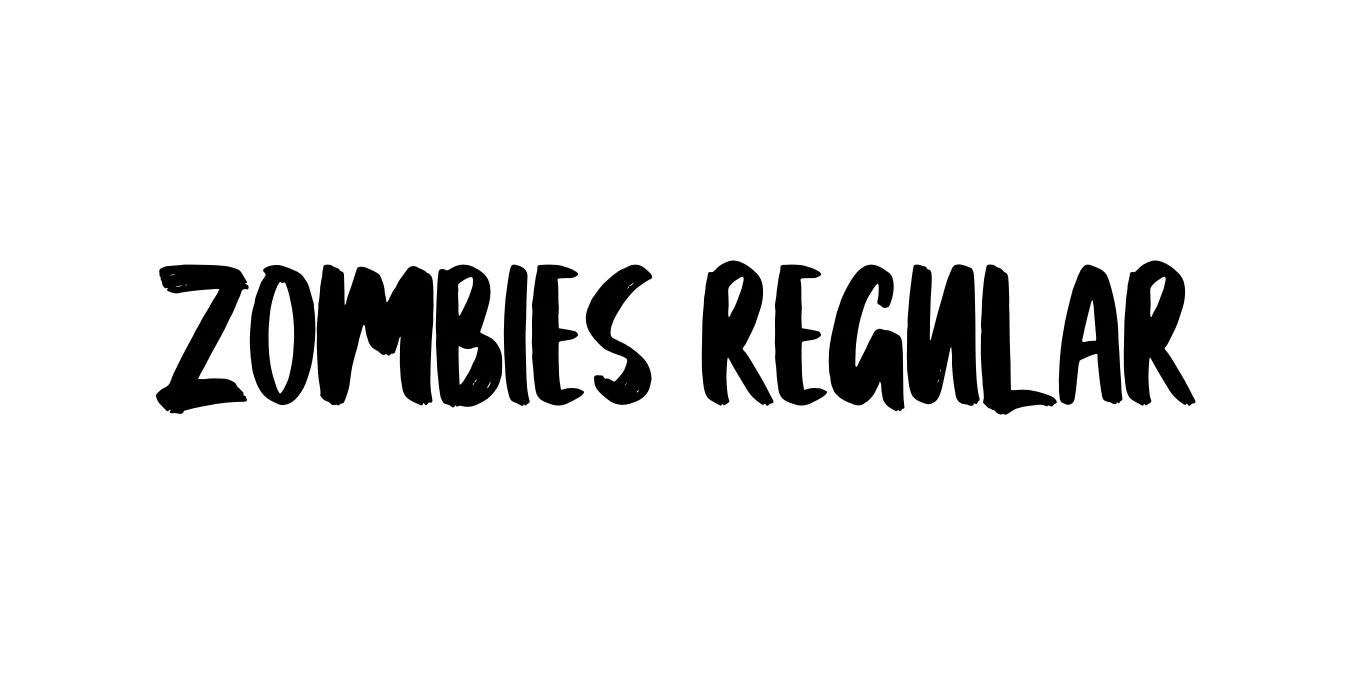
Zombies Regular
Designed by Imagex
| Category | Display / Horror |
| Designer | Imagex |
Zombies Regular is a chilling and highly expressive typeface specifically designed to capture the raw essence of horror and the undead. Characterized by its distressed, jagged edges and intentionally uneven strokes, the font mimics the look of hand-painted warnings or decaying signage found in post-apocalyptic settings. Its visual style conveys a sense of urgency and dread, making it an instantly recognizable choice for genre-specific projects.
Developed to serve the needs of the horror and thriller industries, this font excels in creating a gritty, supernatural atmosphere. It is widely used for Halloween-themed branding, movie posters, and graphic novels. Because of its bold presence and rough textures, it remains legible even when applied to dark or busy backgrounds, ensuring your message carries the weight of a true horror masterpiece.
Zombies Regular Best Uses
Ideal for creating terrifying movie titles and high-impact promotional materials.
Perfect for spooky invitations, event flyers, and haunted house signage.
Great for UI elements and title screens in survival horror or post-apocalyptic games.
Excellent for edgy t-shirt designs and streetwear with a gothic or metal aesthetic.